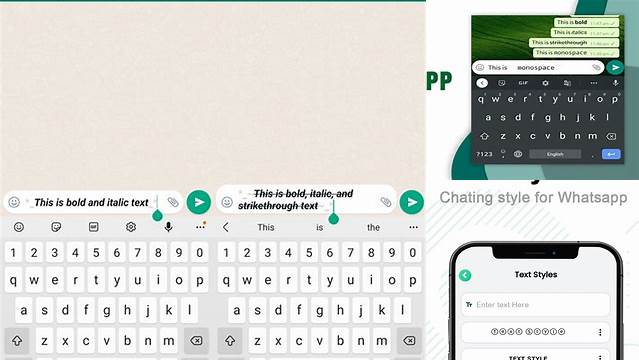
WhatsApp Fonts: How To Customize Your Text
Hey guys! Ever wondered how to jazz up your WhatsApp chats with different fonts? Well, you're in luck because we're diving deep into the world of WhatsApp font styles and how you can use them to make your messages pop. WhatsApp, being the go-to messaging app for billions, doesn’t offer a boatload of font options built-in. But don't you worry, there are some cool workarounds and tricks you can use to add a little flair to your texts. Let's explore the various ways you can spice up your WhatsApp game with unique fonts, from the classics like bold and italic to more creative options that will make your friends and family say, "Woah, how'd you do that?!"
The Basics: Bold, Italic, and More
Okay, let's start with the basics. WhatsApp gives you a few simple formatting options right out of the box: bold, italic, strikethrough, and monospace. These are super easy to use, and they're your first line of defense when you want to add some visual interest to your messages. Want to emphasize something important? Use bold. Need to show a title or a quote? Italic is your friend. Want to cross something out? Use strikethrough. And if you're feeling a bit techy, monospace is there for you. The best part? You don't need to download any extra apps or go through complicated steps. Just a few simple characters, and bam, your text is transformed.
To get bold text, simply add an asterisk (*) before and after the words or phrases you want to emphasize. For example, typing "Hello, world!" will display as Hello, world!. Easy peasy, right?
For italic text, use underscores (_) before and after the text. So, "This is italic" will show up as This is italic.
If you want to cross something out, use tildes (~) before and after the text. "~This is crossed out~" will appear as ~This is crossed out~.
Finally, for monospace text (which gives you a typewriter-like font), use three backticks () before and after your text. For example, "
This is monospace" will display as
This is monospace```. This is awesome for sharing code snippets or just for a retro vibe.
These simple formatting options can already make a big difference in your messages. They help you highlight important points, create a more visually appealing chat, and make your messages easier to read. Even if you don't want to go crazy with different fonts, knowing these basics will level up your WhatsApp game.
Step-by-Step Guide to Formatting
Let's break down how to use these formatting options in detail so you can get started right away. No need to be a tech wizard; it's straightforward and intuitive, just like everything else on WhatsApp!
- Bold Text: To make text appear bold, you need to wrap your words with asterisks. Start by typing an asterisk () right before the first word you want to emphasize. Then, type the rest of your text. Finally, put another asterisk () right after the last word. For example: "Important message" will be displayed as Important message.
- Italic Text: Italics can make your text look sleek and stylish. The process is almost the same as with bold, except you'll use underscores (_). Place an underscore before the first word and after the last word to make your text italic. For example: "This is an italic text" will display as This is an italic text.
- Strikethrough Text: Strikethrough is useful for showing edits or revisions. Using tildes (~) is all it takes. Put a tilde before and after the text you want to strike through. For example: "~Incorrect information~" will appear as ~Incorrect information~.
- Monospace Text: Monospace is for the techies or those who love the old-school typewriter look. Use three backticks (
) before and after the text. This will change the font to a fixed-width style, making each character the same width. For example: "
console.log('Hello, world!');" will be displayed as
console.log('Hello, world!');```.
Practice these formatting options in your WhatsApp chats to get the hang of it. You'll be surprised how much these simple tricks can enhance your messaging experience!
Third-Party Apps and Font Generators: Unleashing More Font Styles
Now, if you're looking for more variety than just bold, italic, and the like, it's time to explore some third-party options. WhatsApp doesn't natively support a massive library of fonts, but there are plenty of apps and websites that can help you generate text in different styles. These tools usually work by creating Unicode characters that look like different fonts. When you paste this text into WhatsApp, it'll display the style generated by the app.
One popular method is using font generator websites. You simply type your text into the generator, and it will show you the text in various styles. You can then copy and paste the text into your WhatsApp chats. There are font generators for all sorts of styles, from fancy cursive fonts to cool, modern ones. It's a great way to add some personality to your messages.
There are also dedicated apps available for both Android and iOS that you can download from your respective app stores. These apps often let you generate different font styles right from within your WhatsApp app, making the process even more seamless. You can even save your favorite font styles for quick access. Be sure to check the app reviews and permissions before downloading any app to ensure it's safe and reliable.
Remember to keep it fun, use the fonts responsibly, and make sure your messages are still easy to read and understand. With these tips and tricks, you're well on your way to mastering WhatsApp fonts and making your chats stand out. Go ahead, start experimenting, and let your personality shine through your messages! Happy texting!